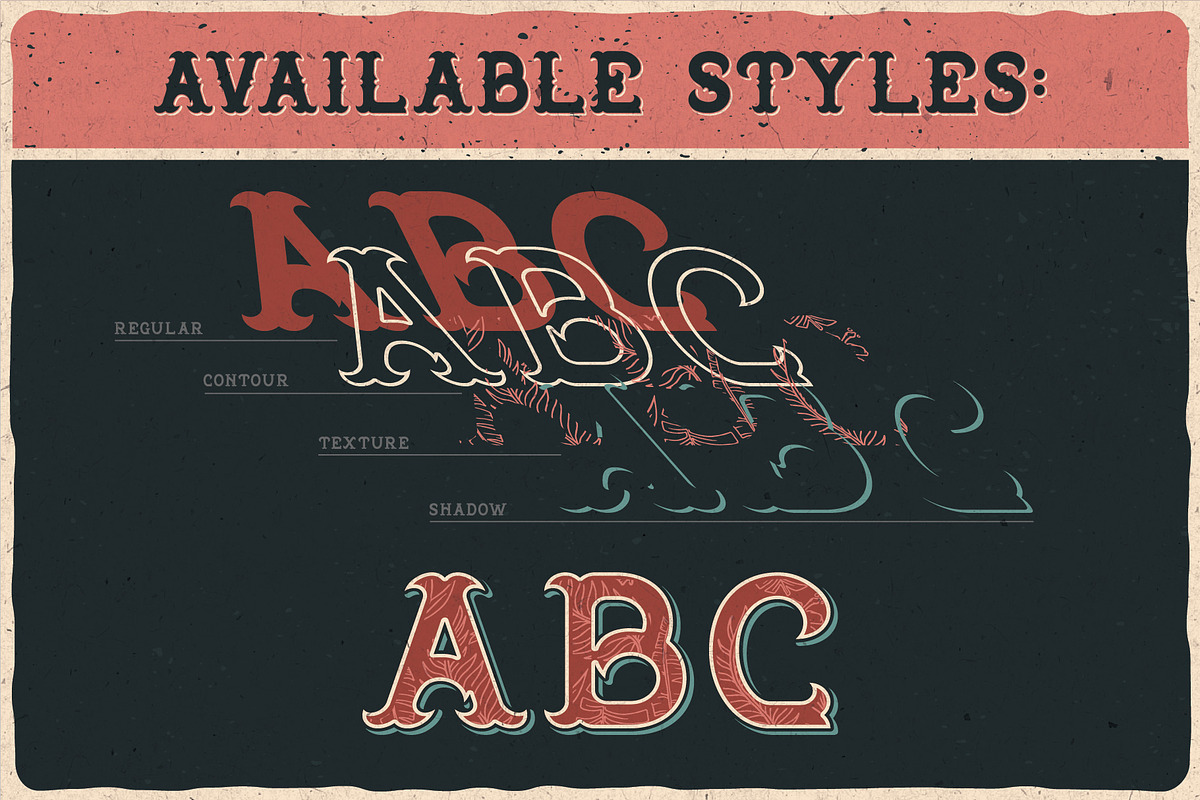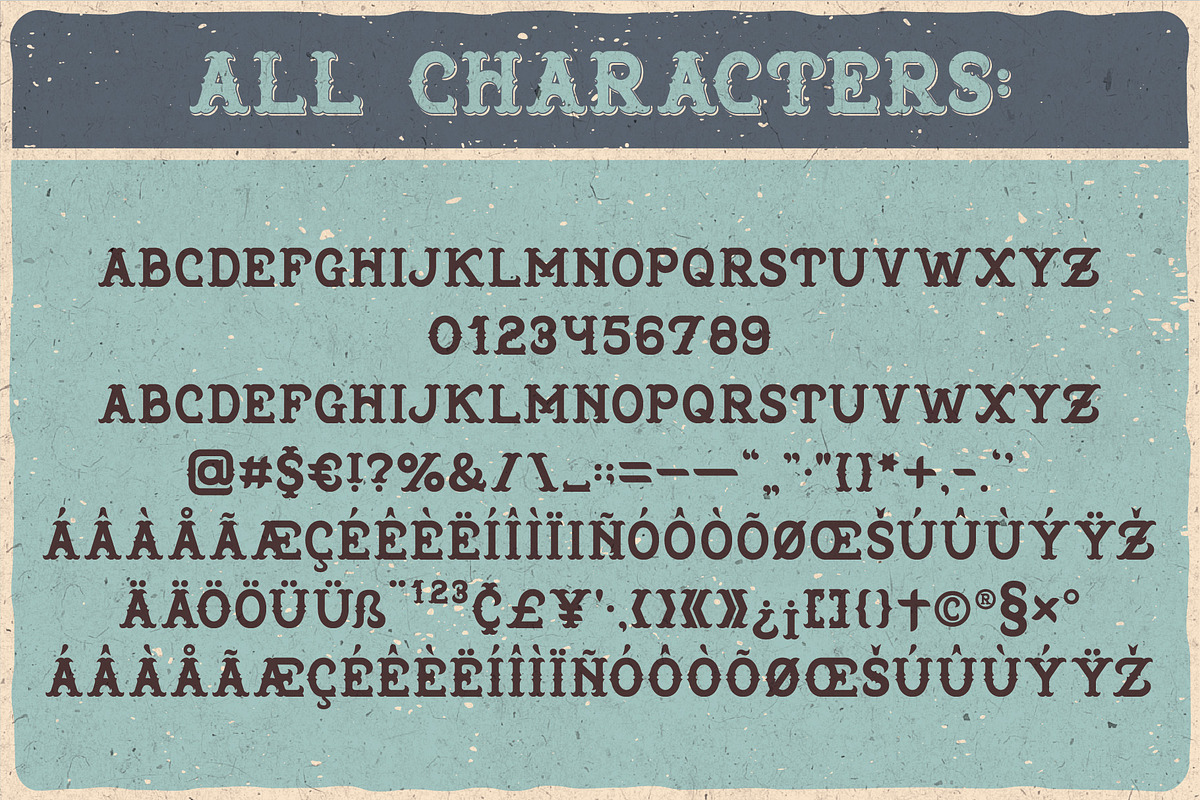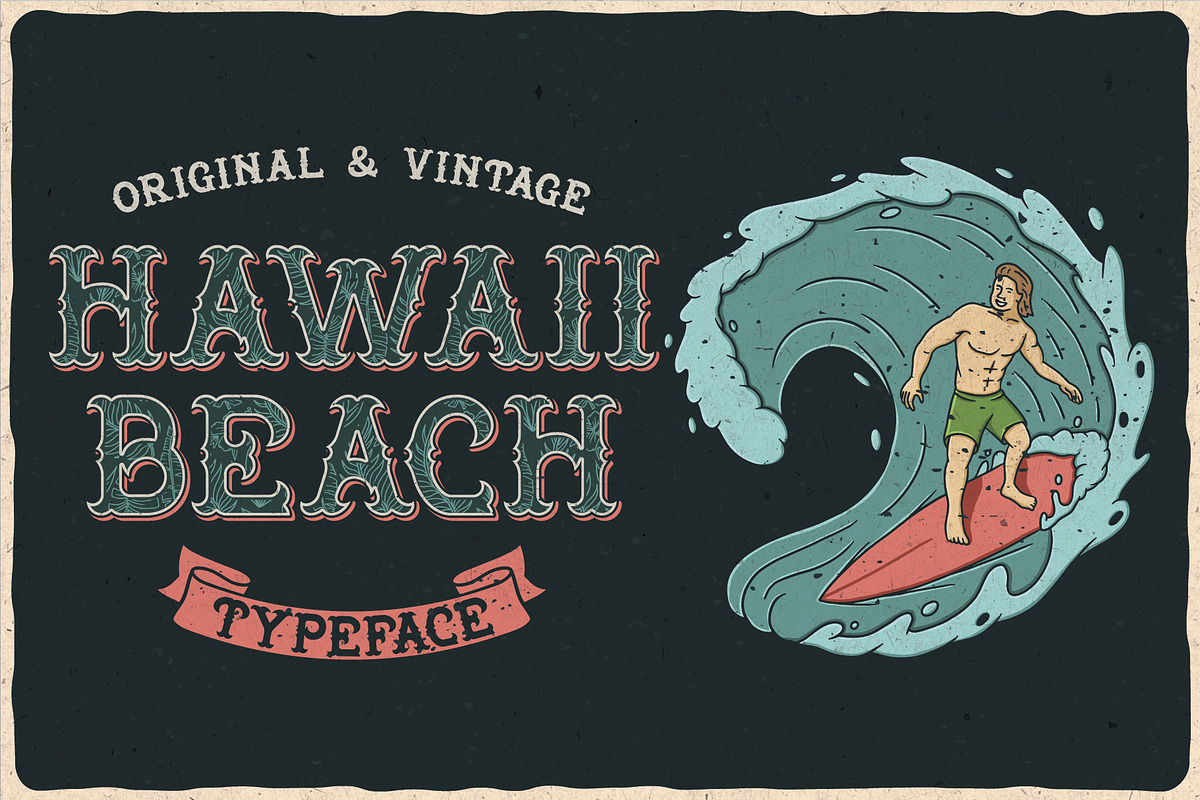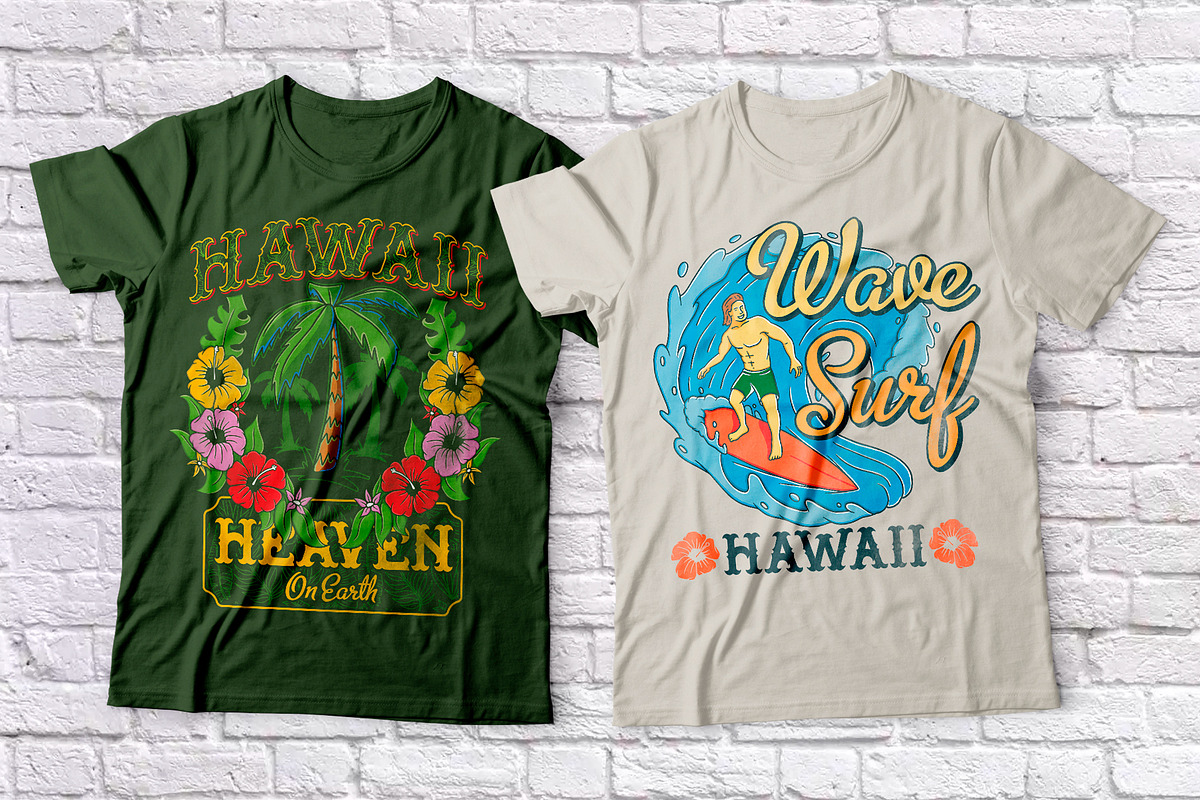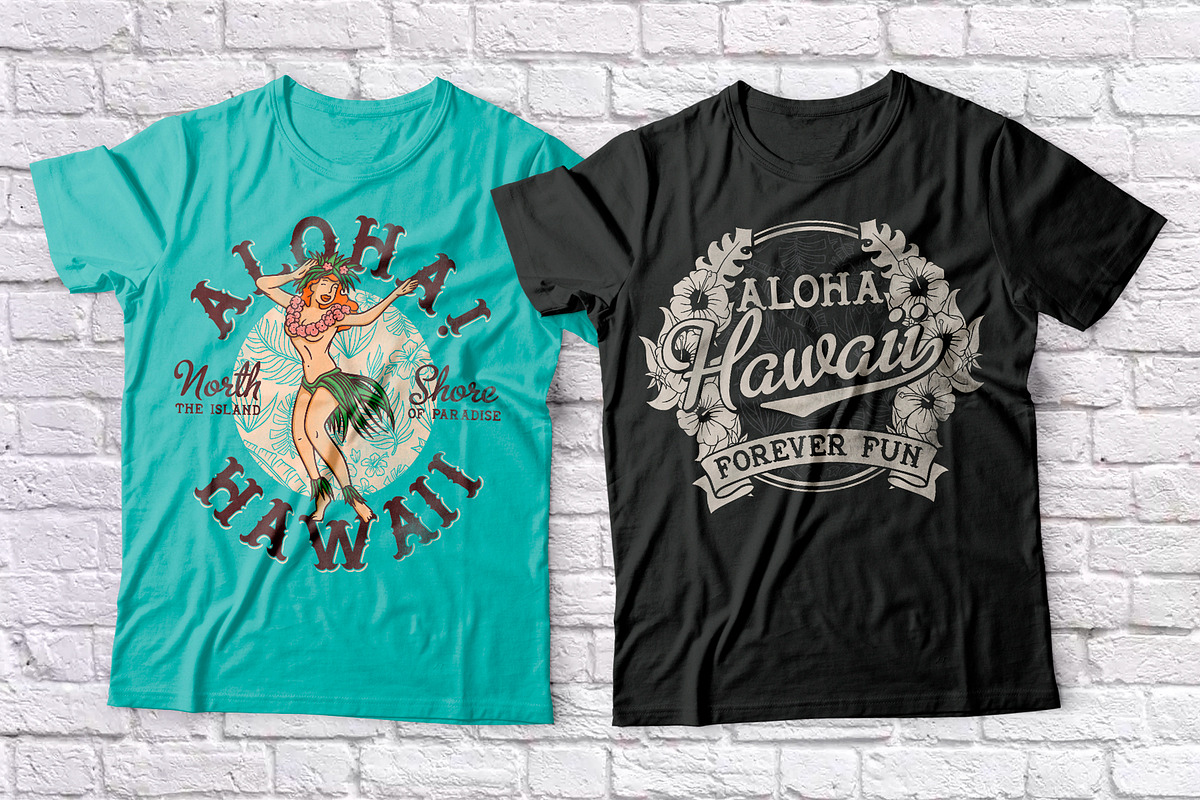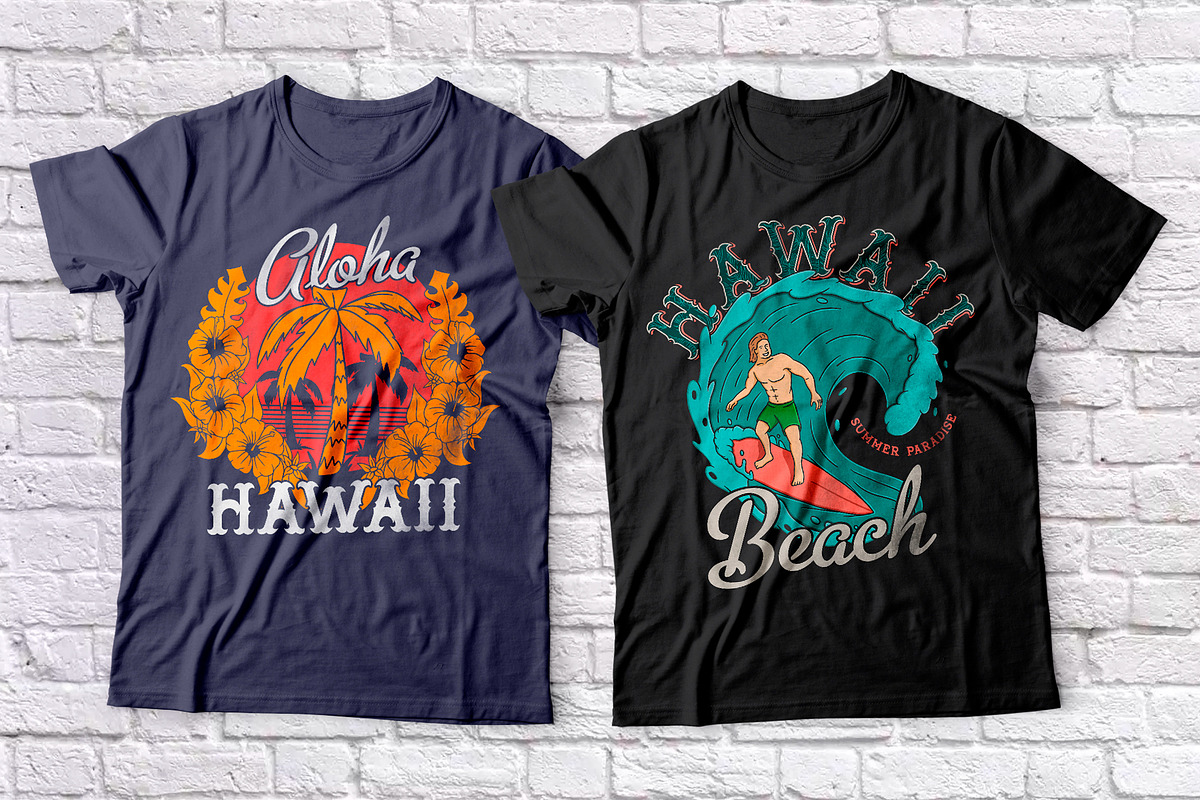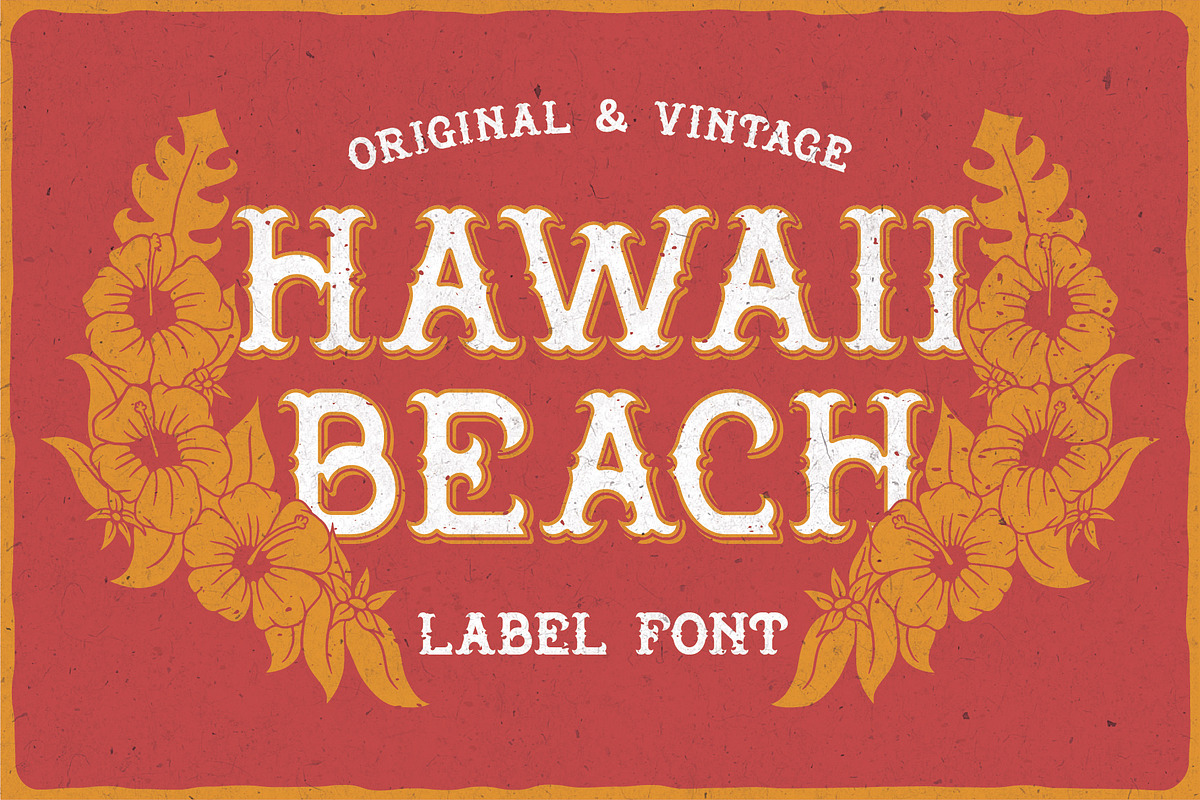
Hawaii Beach. Font & T-shirts
Introducing a vintage look label font named "Hawaii Beach". All available characters you can see at the screenshot. This font have 6 styles (including layered shadow effect style). This font will good viewed on any retro design like poster, t-shirt, label, logo etc.
A lot of additional characters and multilingual support
Seamless pattern with hawaiian vegetation.
For using shadow effect layer:
Type your text in Regular. Copy that and paste at the same position. Change the style to Shadow FX.